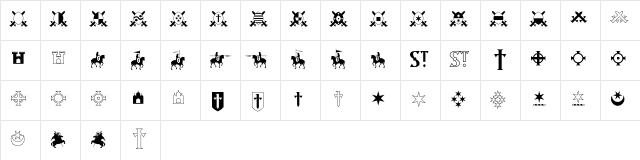
Archangel Icon Free Font
Archangel Icon
Style: Icon
Design Context for Archangel
Archangel is a composed and adaptable typeface that performs quietly and consistently across a wide range of design contexts.